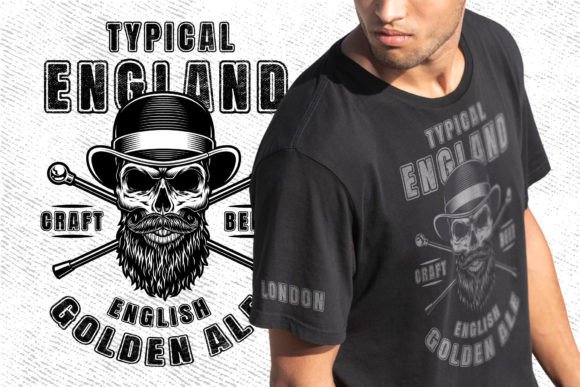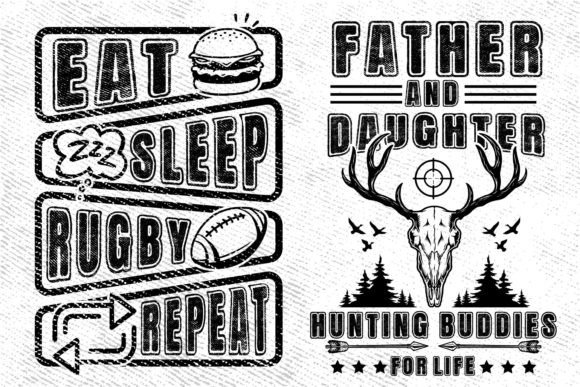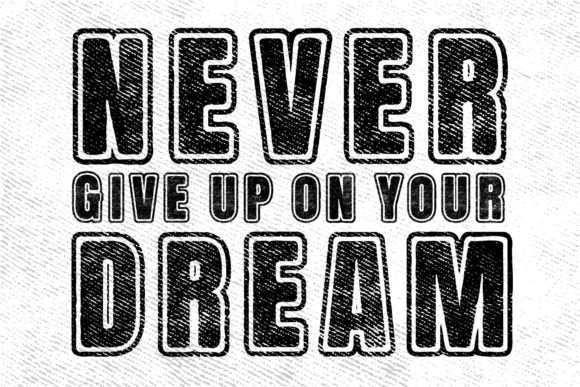
Dream Big Font: The Ultimate Choice for Bold and Retro Designs
Are you a designer or crafter looking for a font that can add a touch of nostalgia and assertiveness to your creations? Look no further than the Dream Big Font. This cool and retro-styled display font is perfect for t-shirt designs, vintage projects, and any other creation that requires a bold and eye-catching vibe.
What is Dream Big Font?
Dream Big Font is a display font designed to make a statement. Its retro style is reminiscent of the classic fonts from the 80s and 90s, but with a modern twist that makes it perfect for contemporary designs. The font is characterized by its bold lines, chunky texture, and assertive presence, making it ideal for designs that need to stand out from the crowd.
Key Features of Dream Big Font
- Retro Style: Dream Big Font has a distinctly retro feel that is perfect for vintage-inspired designs, nostalgia-tinged projects, and creations that require a classic touch.
- Bold and Assertive: The font’s bold lines and chunky texture give it an assertive presence that demands attention.
- Versatile: Dream Big Font can be used for a wide range of projects, from t-shirt designs and posters to logos and branding materials.
- Easily Readable: Despite its bold style, Dream Big Font is surprisingly easy to read, making it perfect for designs that require a clear and concise message.
Use Cases for Dream Big Font
Dream Big Font is a versatile font that can be used for a wide range of projects. Here are some use cases where the font really shines:
- T-Shirt Designs: Dream Big Font is perfect for t-shirt designs that require a bold and eye-catching font. Its retro style and assertive presence make it a great choice for designs that need to stand out.
- Vintage Projects: The font’s retro style makes it a natural fit for vintage-inspired projects, such as posters, flyers, and brochures.
- Logos and Branding: Dream Big Font can be used to create bold and memorable logos that make a statement.
- Posters and Flyers: The font’s bold style and easy readability make it perfect for posters and flyers that need to grab attention and communicate a clear message.
Tips for Using Dream Big Font
Here are some tips for getting the most out of Dream Big Font:
- Use it Sparingly: Dream Big Font is a bold font that can be overwhelming if overused. Use it sparingly to create emphasis and draw attention to key messages.
- Experiment with Colors: The font’s bold style makes it perfect for experimenting with different colors and color combinations.
- Pair it with Other Fonts: Dream Big Font can be paired with other fonts to create a unique and visually appealing design.
Dream Big Font is a cool and retro-styled display font that is perfect for designers and crafters looking to add a touch of nostalgia and assertiveness to their creations. Its bold lines, chunky texture, and assertive presence make it ideal for designs that need to stand out from the crowd. With its versatility, easy readability, and bold style, Dream Big Font is a great choice for a wide range of projects, from t-shirt designs and vintage projects to logos and branding materials.